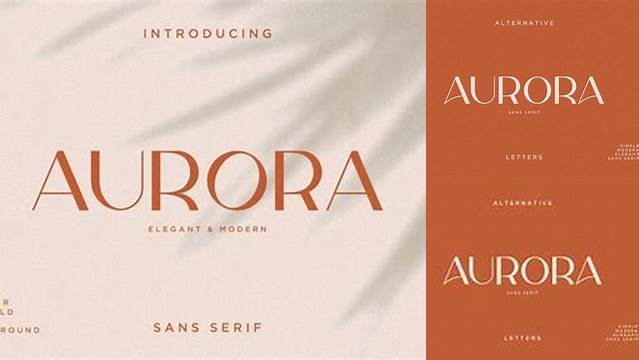
Aurora Font: Elegant, Modern & Free Sans Serif Download
Are you on the hunt for a sleek, modern, and absolutely free sans serif font? Well, buckle up, guys, because Aurora might just be the answer to your design prayers! Let’s dive into why this font is making waves and how you can snag it for your next project.
What Makes Aurora Special?
Aurora isn't just another font; it’s a carefully crafted typeface designed to bring a touch of elegance and modernity to any design. Its clean lines and balanced letterforms make it incredibly versatile, suitable for everything from logos and branding to websites and print materials. The beauty of Aurora lies in its simplicity; it’s unobtrusive yet impactful, ensuring your message is delivered with clarity and style.
One of the key features of Aurora is its readability. The font maintains excellent clarity even at smaller sizes, making it perfect for body text as well as headlines. This versatility means you can use Aurora across various platforms and applications without sacrificing legibility or aesthetic appeal. Plus, its modern sans serif design aligns well with current design trends, ensuring your projects look contemporary and fresh.
Aurora also stands out due to its comprehensive character set. It includes a wide range of glyphs, ligatures, and alternates, giving designers plenty of options to play with and customize their typography. Whether you’re looking to add a unique flair to your logo or create visually appealing body text, Aurora provides the tools you need to achieve your desired look. The inclusion of multiple weights further enhances its adaptability, allowing you to create visual hierarchy and emphasize key elements in your designs.
In a world where designers are constantly seeking resources that offer both quality and affordability, Aurora hits the sweet spot. It provides a professional-grade typeface without the hefty price tag, making it accessible to freelancers, startups, and established businesses alike. This accessibility, combined with its elegant design and versatility, makes Aurora a valuable asset in any designer's toolkit.
Why Choose a Sans Serif Font?
Sans serif fonts, like Aurora, are the go-to choice for many designers aiming for a modern and clean aesthetic. Unlike serif fonts, which have small decorative strokes at the ends of letters, sans serif fonts feature clean, unadorned lines. This simplicity gives them a contemporary feel, making them ideal for digital interfaces and designs that need to look cutting-edge.
The absence of serifs also contributes to better readability on screens. Pixels can sometimes distort the fine details of serif fonts, making them appear blurry or cluttered. Sans serif fonts, with their clean lines, render more crisply and legibly on digital displays. This is particularly important for websites and apps, where user experience is paramount.
Moreover, sans serif fonts tend to convey a sense of modernity and simplicity, which aligns well with current design trends. Many tech companies and startups use sans serif fonts in their logos and branding to project an image of innovation and clarity. Aurora, with its elegant and clean design, fits perfectly into this category, making it an excellent choice for businesses looking to convey a contemporary and approachable brand identity.
Another advantage of sans serif fonts is their versatility. They work well in a variety of design contexts, from headlines to body text, and can be easily paired with other font styles to create visual contrast and hierarchy. This adaptability makes them a reliable choice for designers who need a font that can perform well in different applications.
In summary, choosing a sans serif font like Aurora is a strategic decision for designers who want to create modern, readable, and versatile designs. Its clean lines and contemporary aesthetic make it well-suited for a wide range of projects, ensuring your message is delivered with clarity and style.
Perfect Use Cases for Aurora
So, where does Aurora really shine? Let's explore some perfect use cases for this elegant sans serif font. First off, branding. If you’re crafting a brand identity that needs to exude modernity and sophistication, Aurora is your go-to. Think logos, business cards, and brand guidelines – Aurora brings a cohesive and polished look.
Next up, website design. In the digital realm, readability is king. Aurora’s clean lines and excellent legibility make it ideal for website headers, body text, and navigation menus. Its modern aesthetic ensures your website looks up-to-date and professional, providing a seamless user experience.
Print materials are another area where Aurora excels. Whether you’re designing brochures, posters, or magazines, Aurora’s versatility shines through. Its balanced letterforms and comprehensive character set allow you to create visually appealing layouts that capture attention and communicate your message effectively.